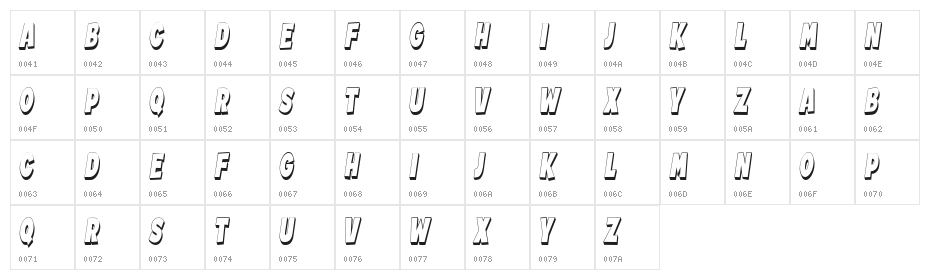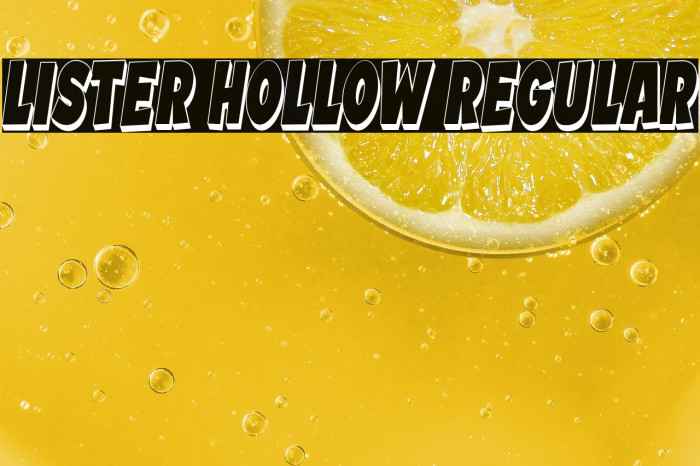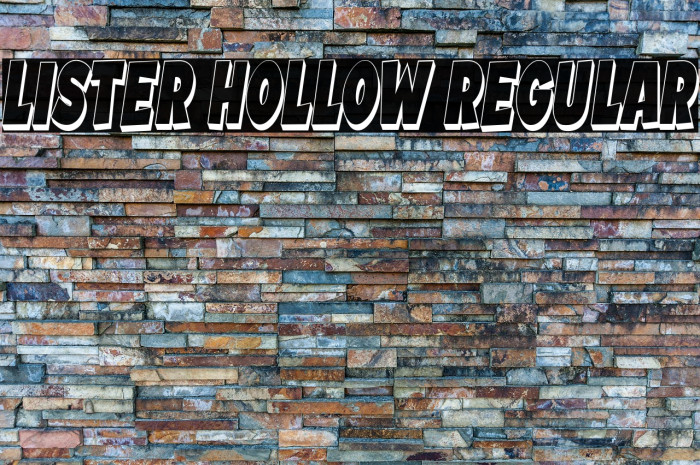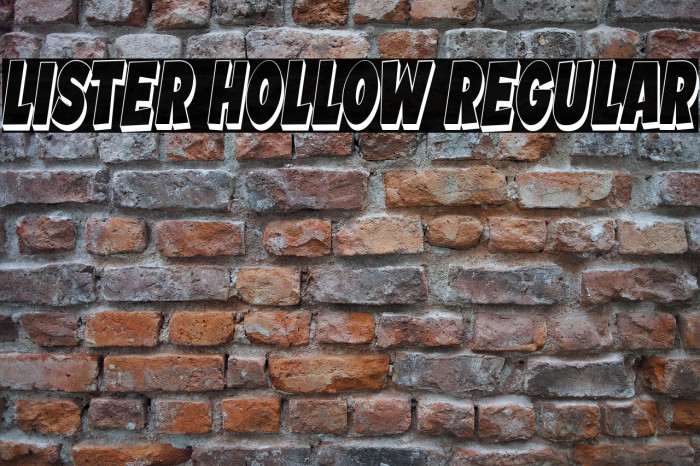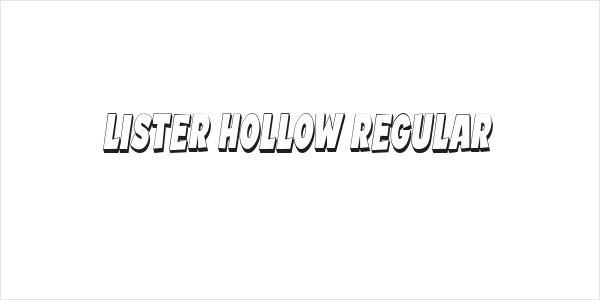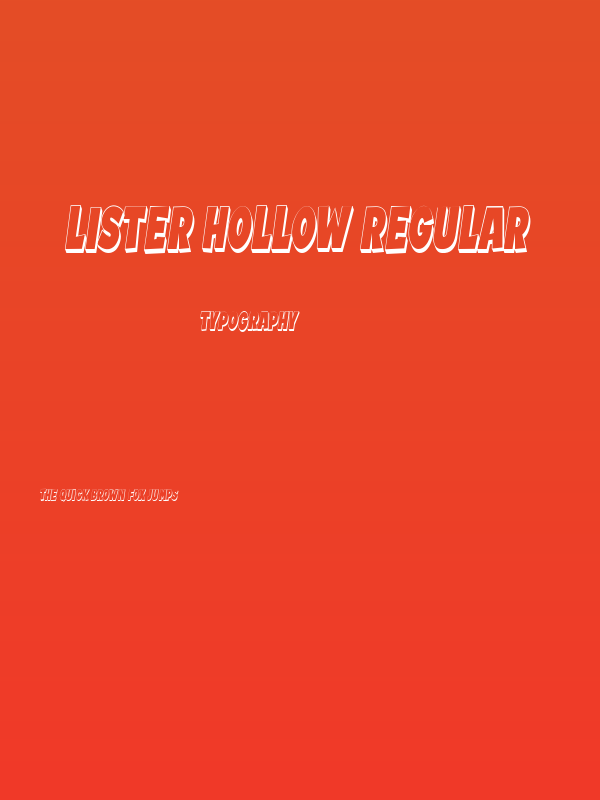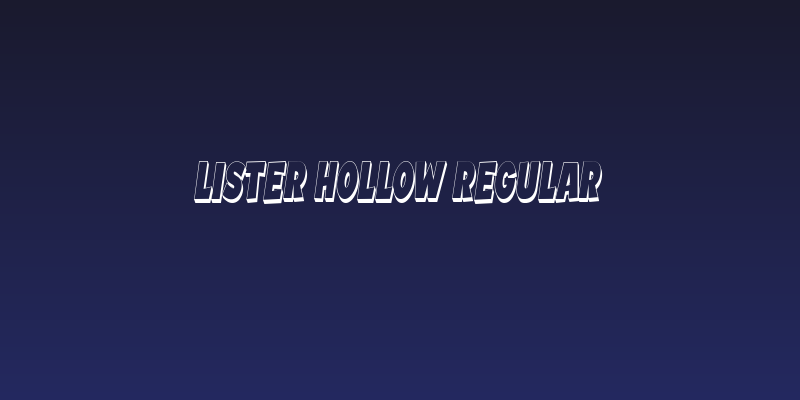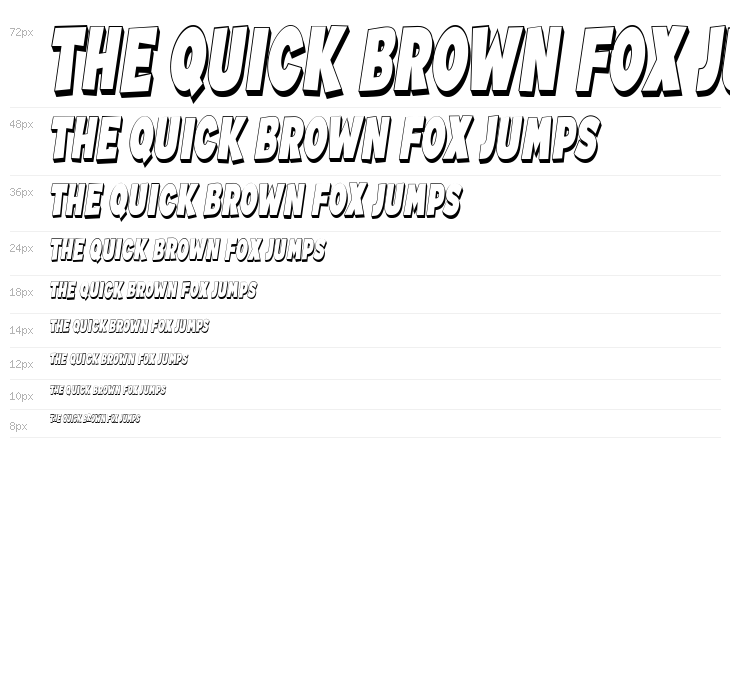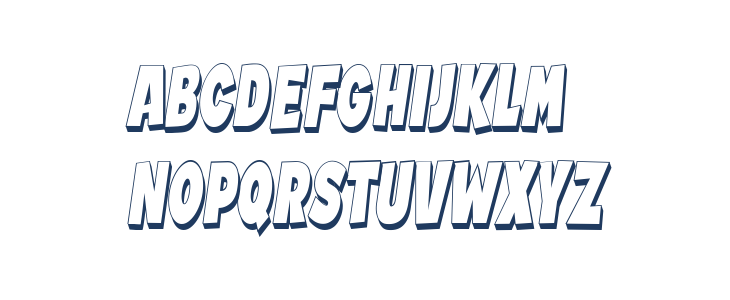
Lister Hollow Regular Font
Lister Hollow Regular Description
This font features a bold, three-dimensional style with a hollow interior, giving it a striking and dynamic appearance. The letters are uppercase, with a slight slant that adds a sense of motion and energy. The thick outlines enhance the boldness, making it ideal for attention-grabbing designs. The font's playful yet strong aesthetic makes it suitable for a variety of creative projects. Its unique hollow design allows for interesting color and texture overlays, providing versatility in design applications.
| Proposed Projects | Ideal for posters, headlines, logos, and any design requiring a bold, eye-catching font. |